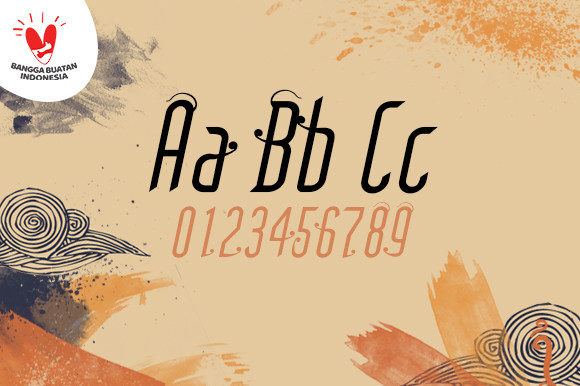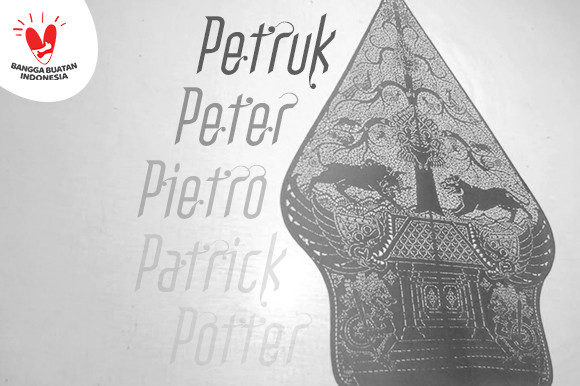
Introduction to Petruk Font Font
Fonts play a crucial role in design, and the Petruk Font font is a typeface that brings both character and versatility to any project. Whether you’re working on a branding project, a website, or a print design, the Petruk Font font offers a unique style that can elevate your work.
Petruk is a cool display font.
It features uniquely shaped letters, and as a result, it will easily match a wide range of creations that require a distinct touch .
Key Features of Petruk Font Font
Why Choose Petruk Font Font?
The Petruk Font font is more than just a typeface – it’s a design tool that helps you communicate your message with style and clarity. Its unique character set and versatile design make it suitable for a wide range of applications, from elegant invitations to bold headlines.
With its carefully crafted letterforms and balanced proportions, the Petruk Font font ensures readability and visual appeal across all mediums.
What makes Petruk Font font special?
The Petruk Font font stands out with its unique design, exceptional readability, and versatility across various design applications.